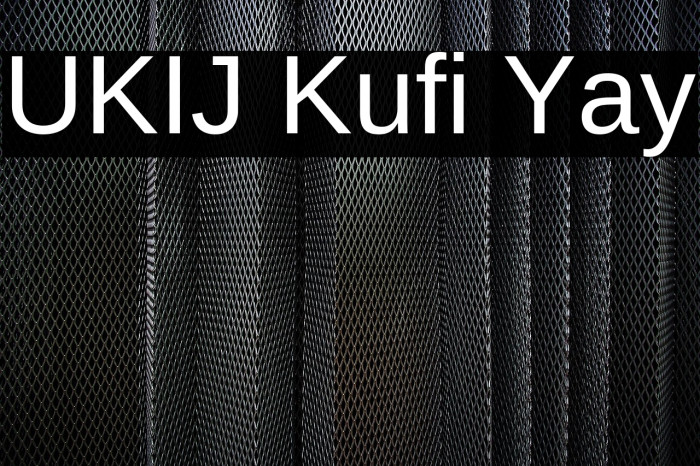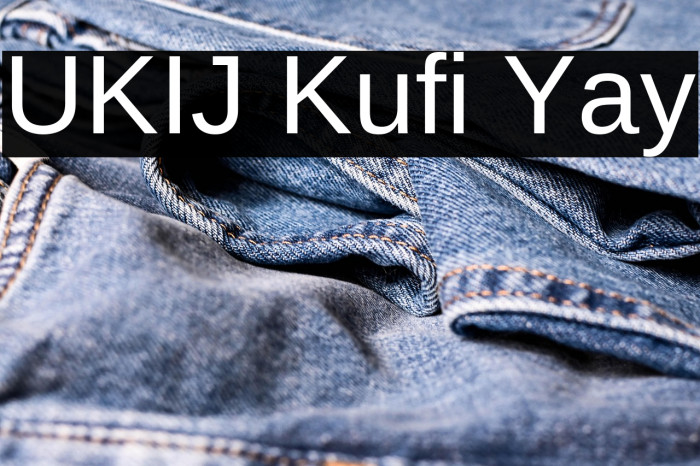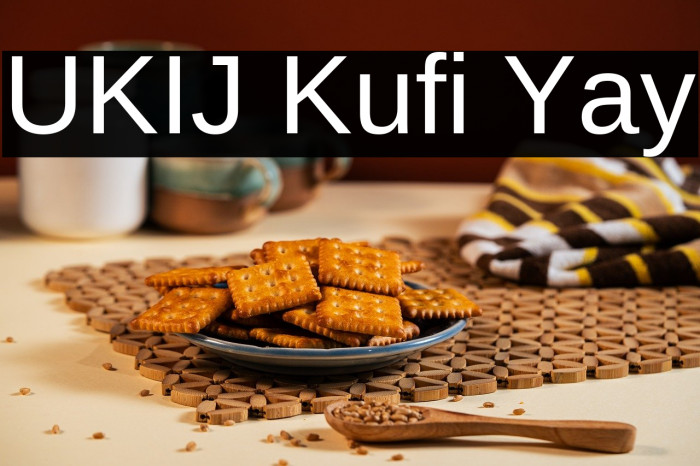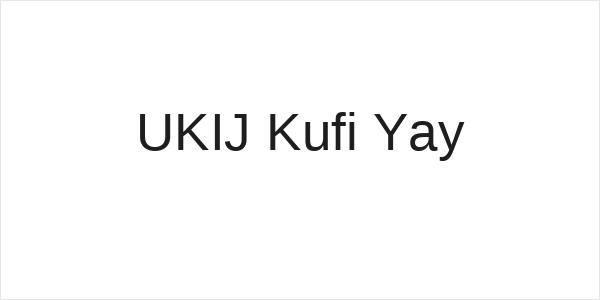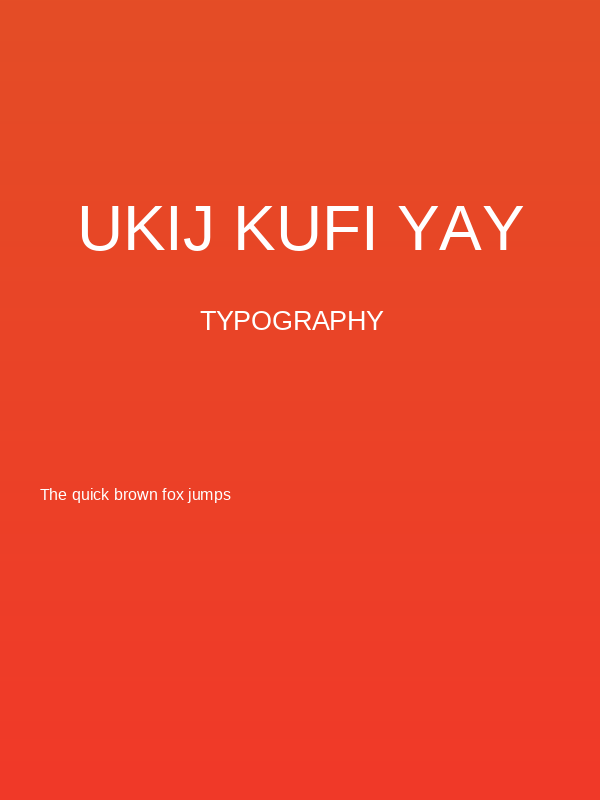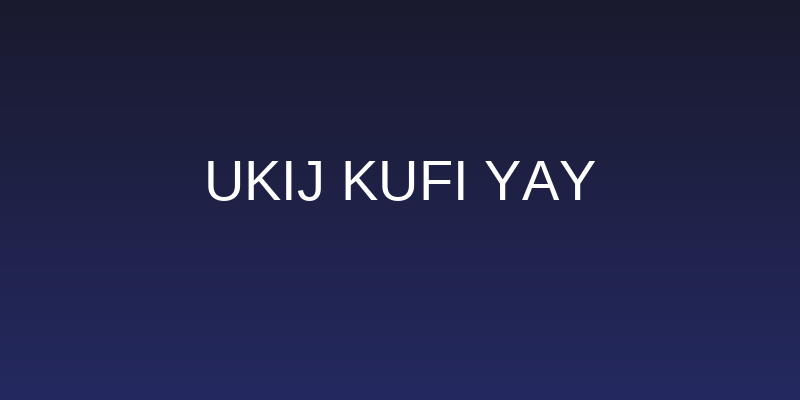
UKIJ Kufi Yay Font
UKIJ Kufi Yay Description
This font features a clean and modern sans-serif style with uniform stroke widths, providing a sleek and professional appearance. The characters are well-proportioned, with a slightly condensed width that enhances readability without sacrificing style. The uppercase letters are bold and assertive, while the lowercase letters maintain a friendly and approachable feel. Numerals are clear and distinct, making them suitable for various applications. The special characters are designed with the same attention to detail, ensuring consistency across all glyphs. This font is versatile and can be used in a wide range of design projects.